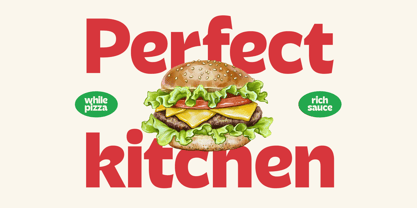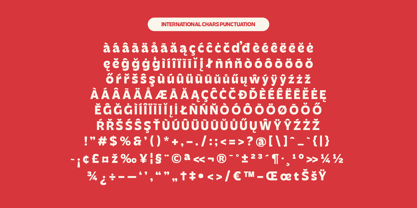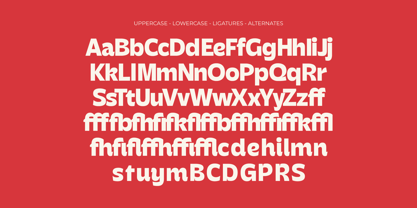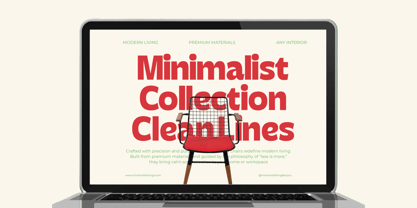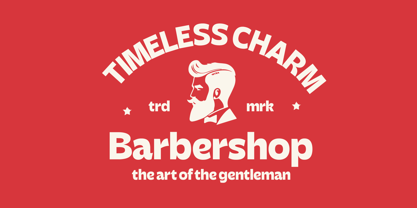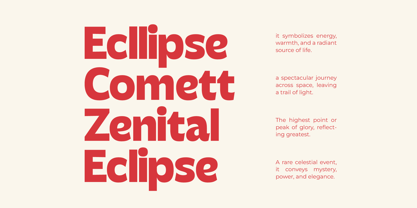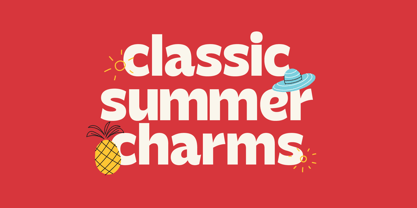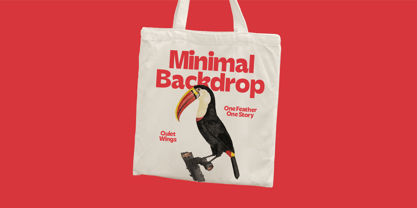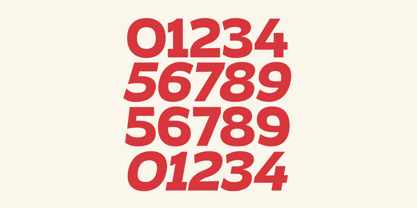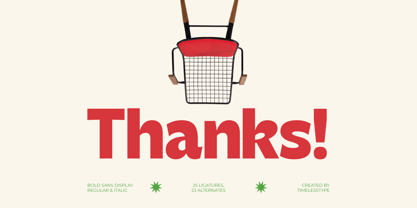
Seatren
by Timelesstype Studio
The Seatren Font Family was designed by Heru Utama Putra and published by Timelesstype Studio. Seatren contains 2 styles and family package options. More about this family
Seatren is a bold sans display font featuring smooth curves, friendly proportions, and a clean contemporary style. Its confident shapes and modern simplicity make it perfect for branding, packaging, posters, product design, headlines, social media graphics, and lifestyle-oriented visuals. The font brings a warm, approachable personality while still maintaining strong visual impact-ideal for both creative and commercial projects.